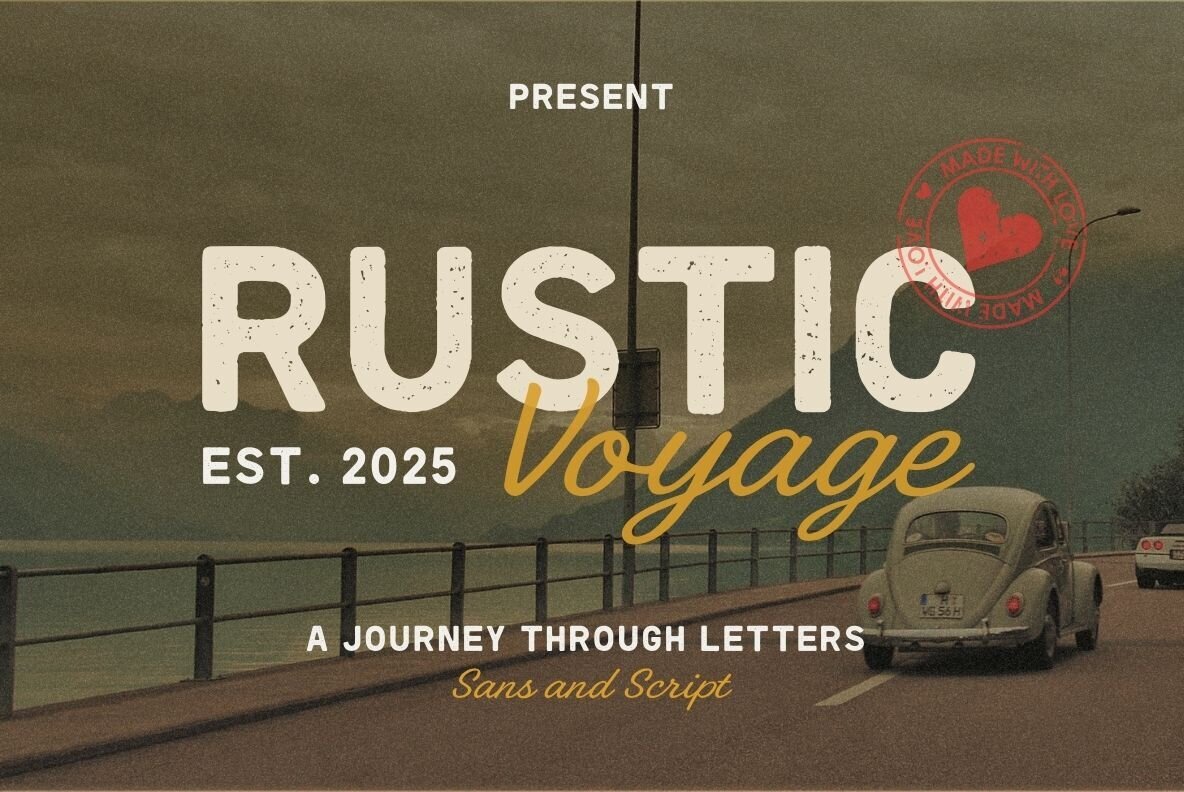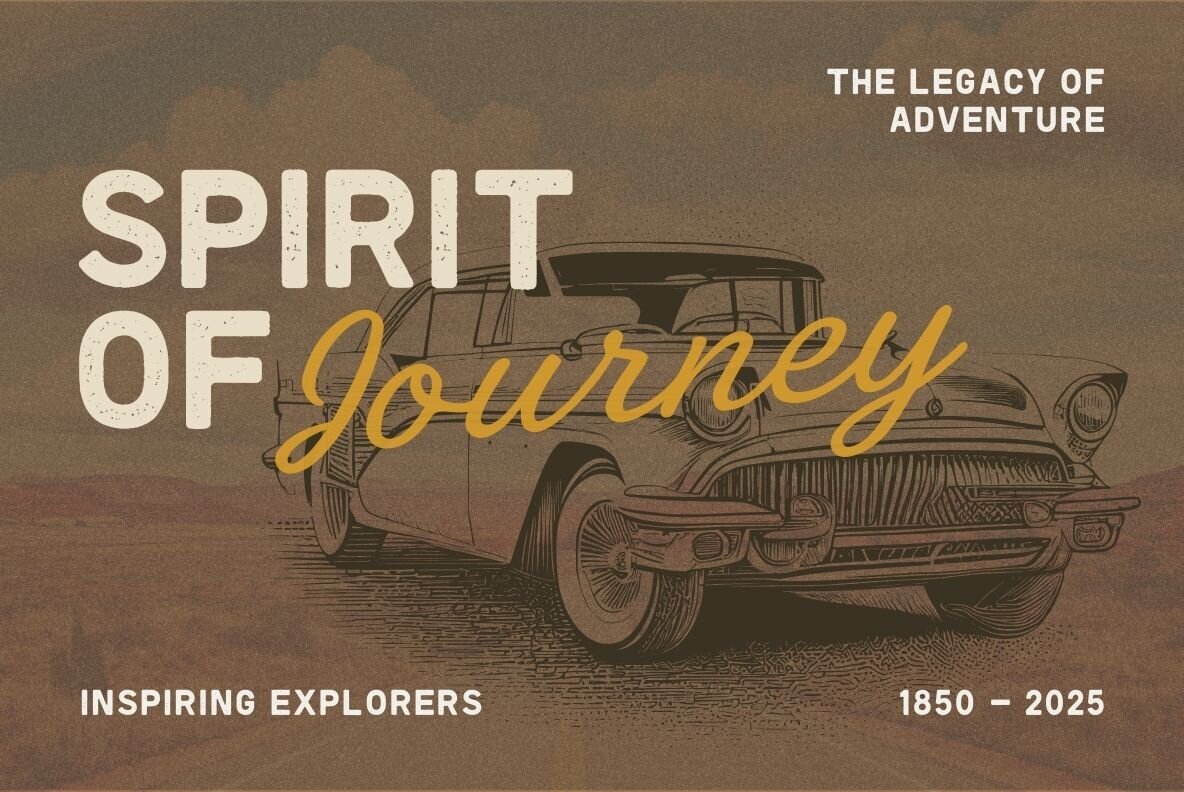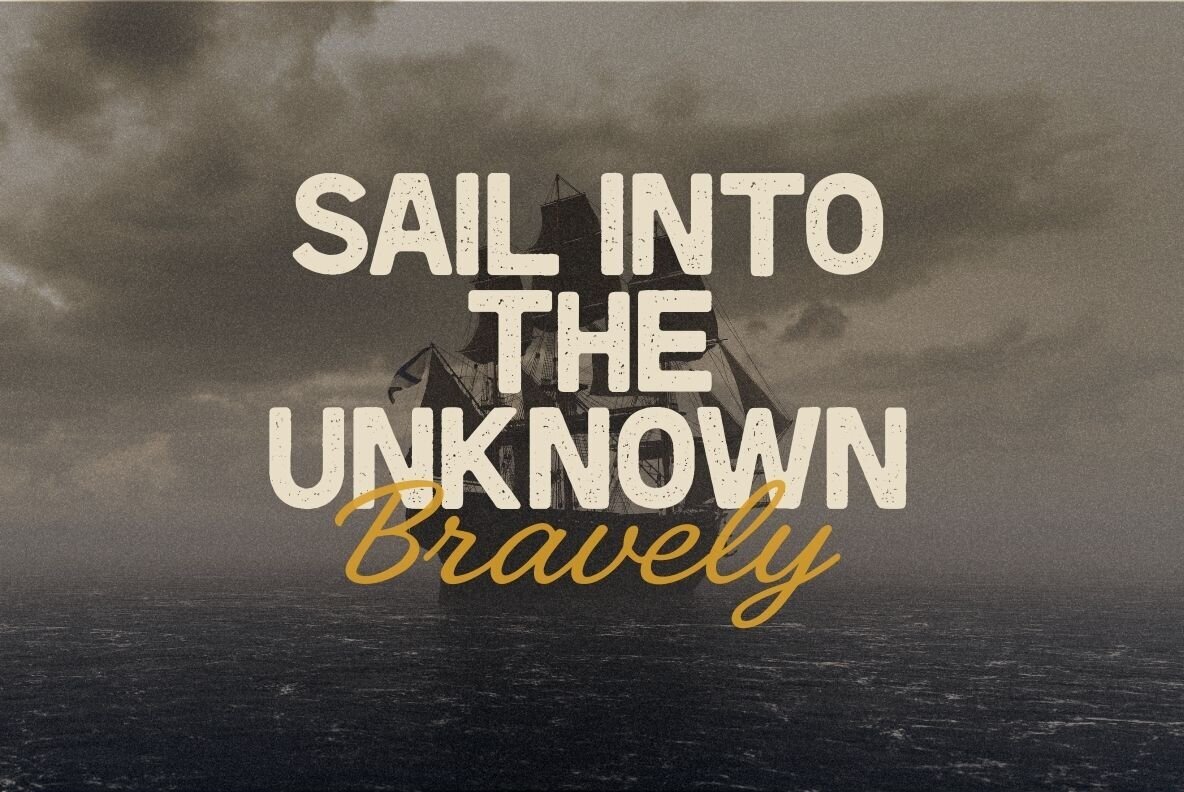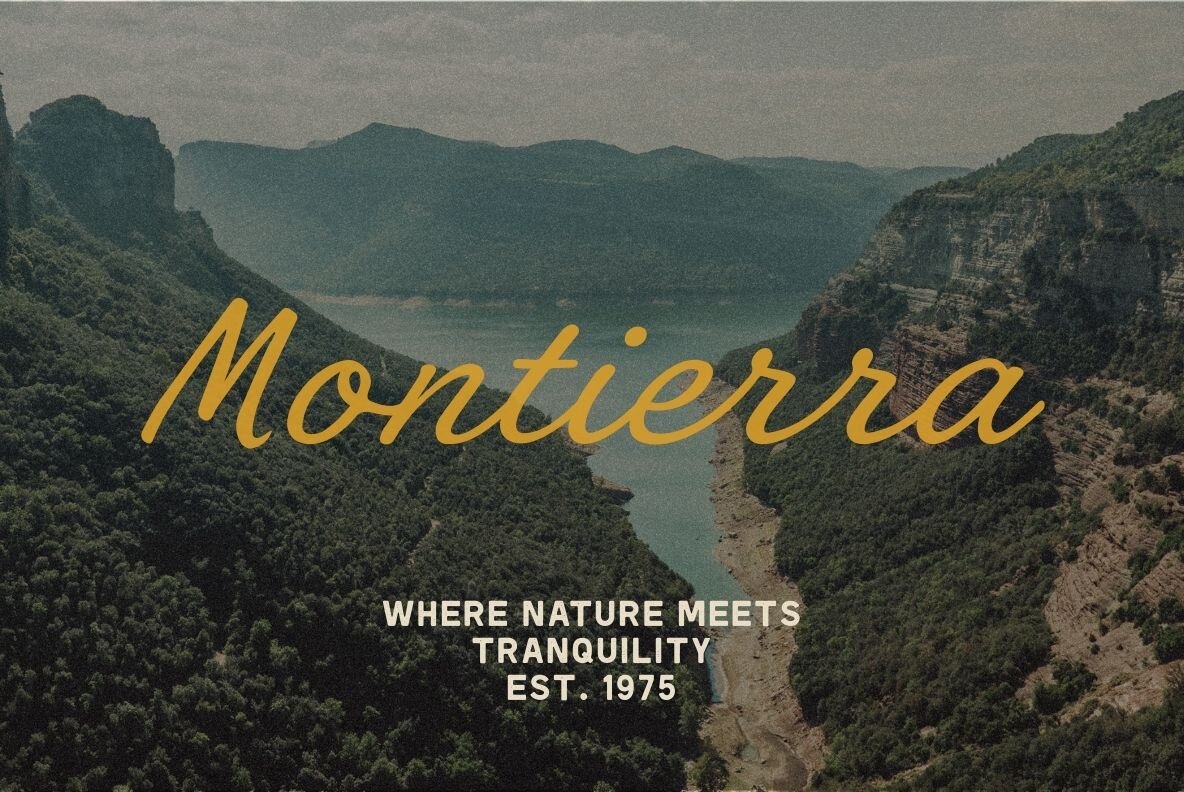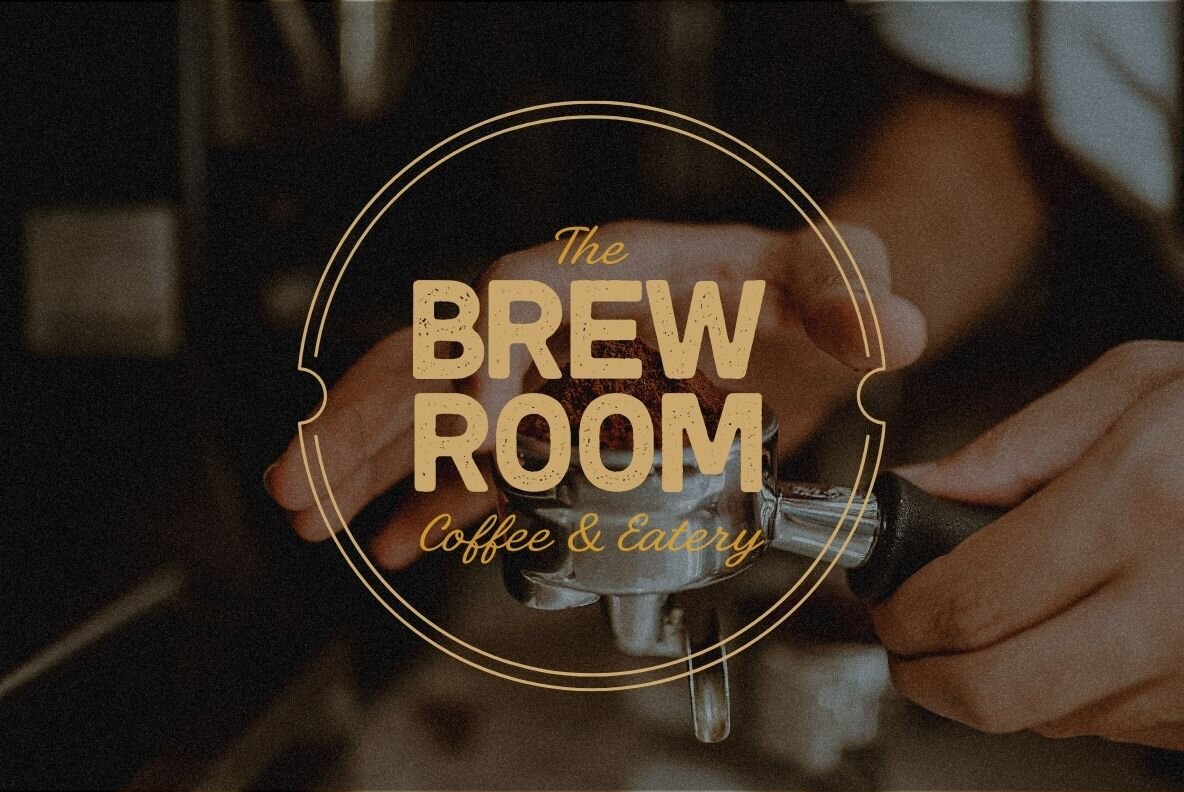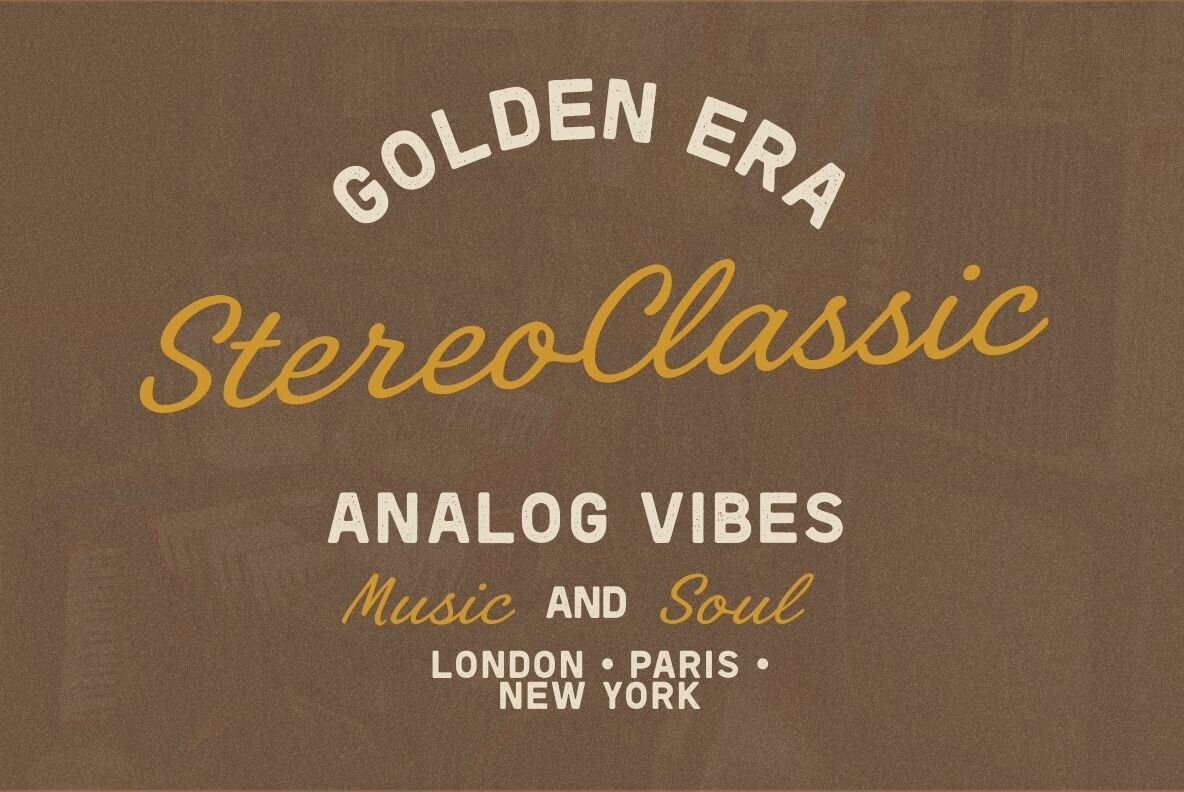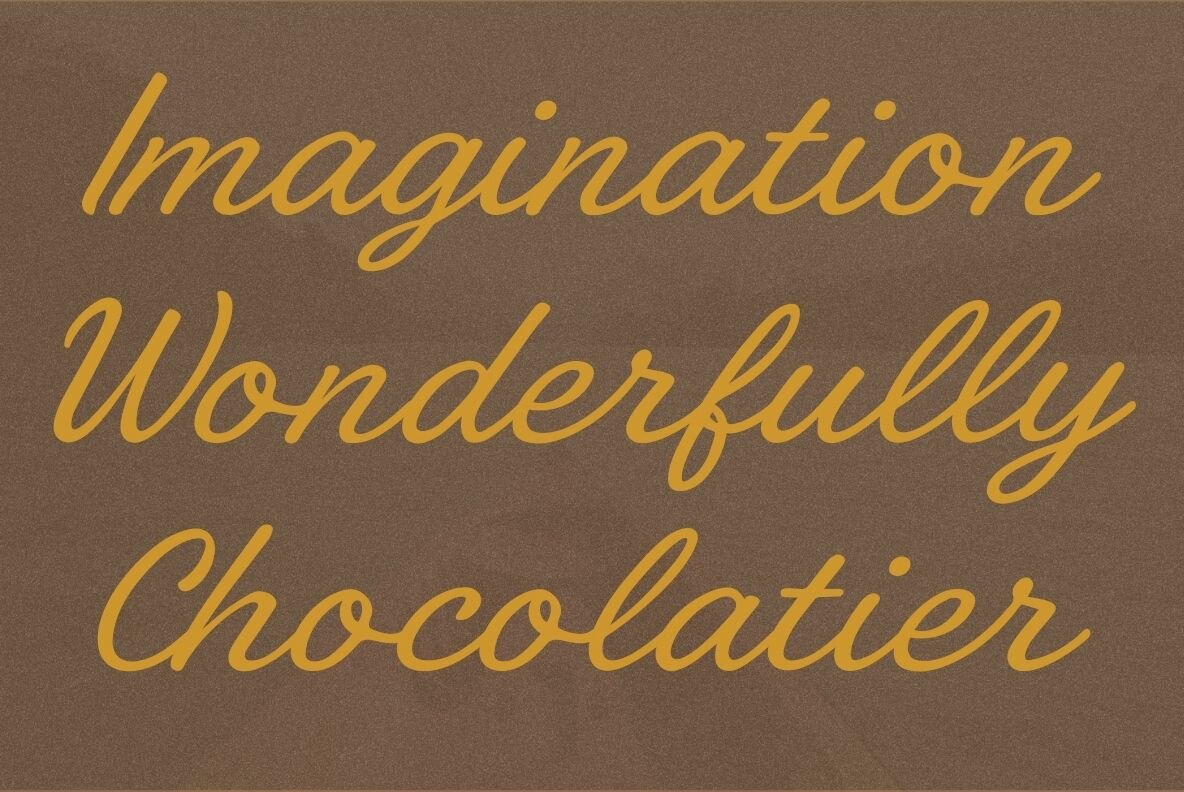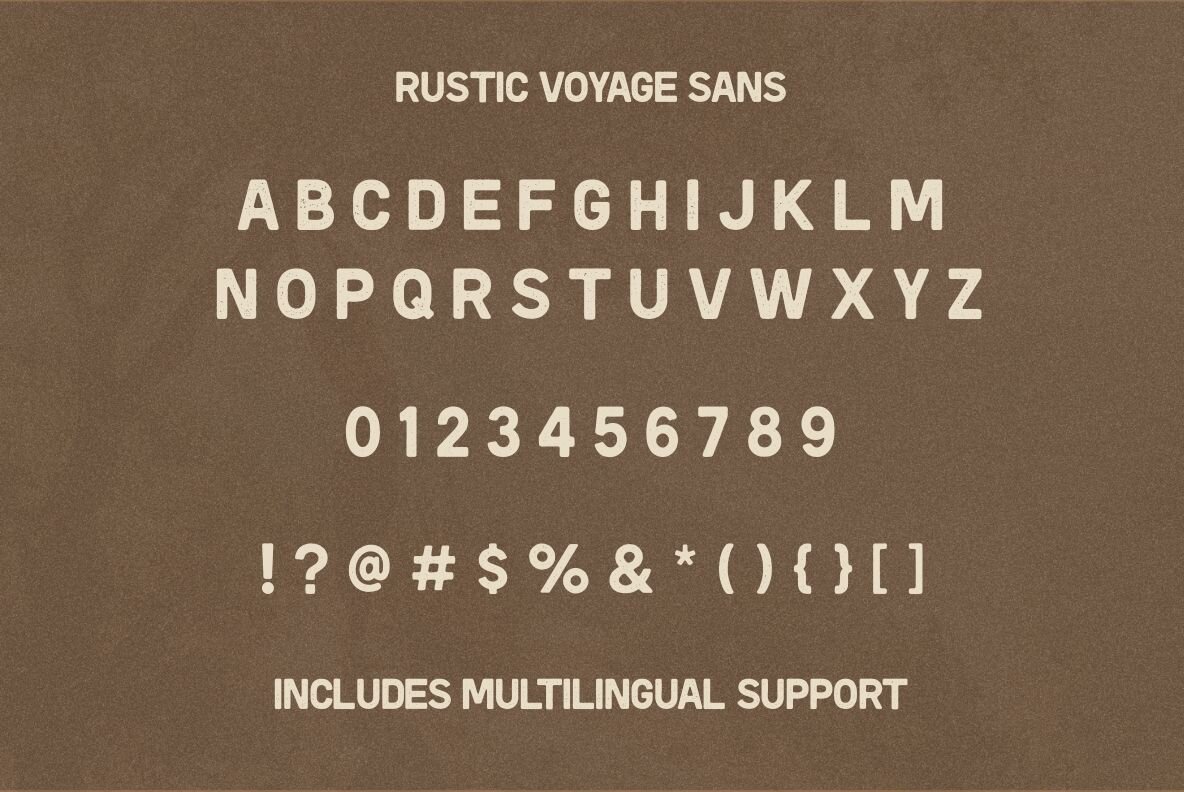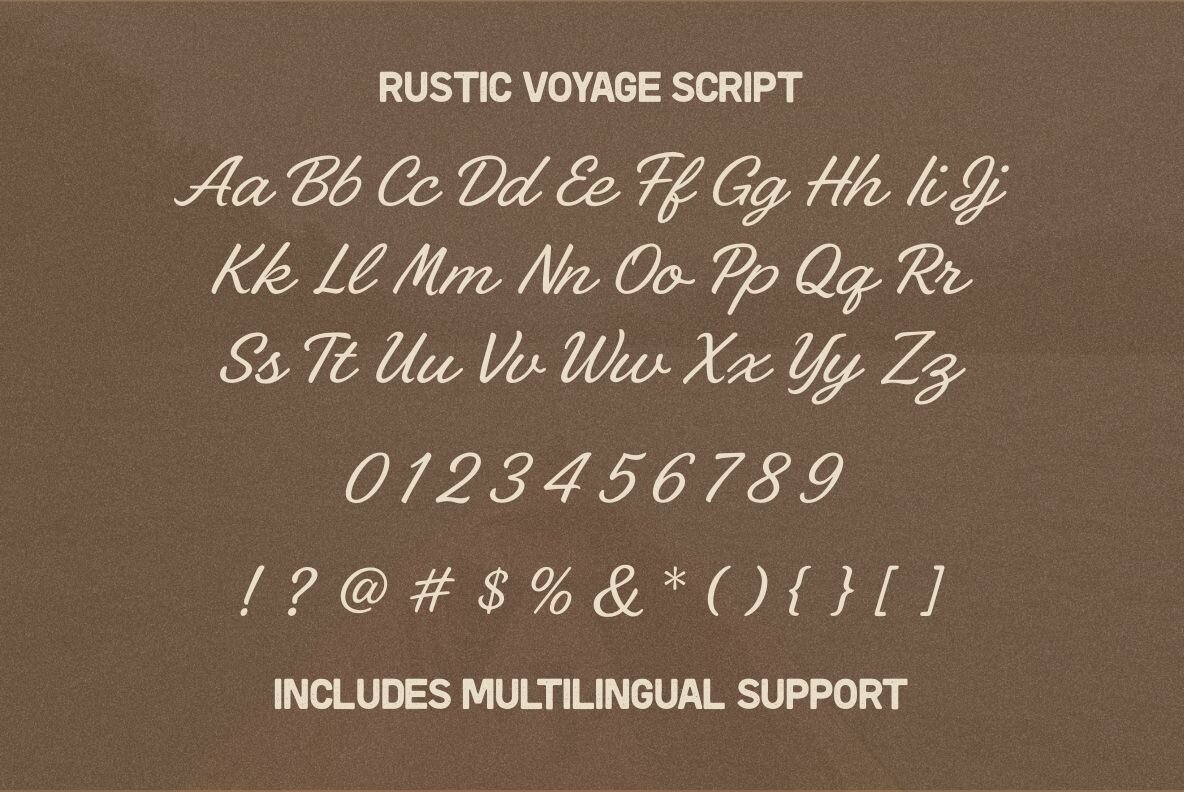
Rustic Voyage Font
Rustic Voyage combines the essence of vintage travel with artisanal design. This font duo pairs a bold serif with a textured script, offering a dynamic blend of strength and warmth suitable for a range of creative projects. The serif font embodies a classic, rugged character, while the script adds a handwritten organic flow. This makes the duo ideal for branding, packaging, posters, apparel, and editorial layouts seeking a rustic yet timeless aesthetic. Infuse your designs with the vintage charm and handcrafted authenticity of Rustic Voyage.Rustic Voyage: A Handcrafted Font Duo Inspired by Travel